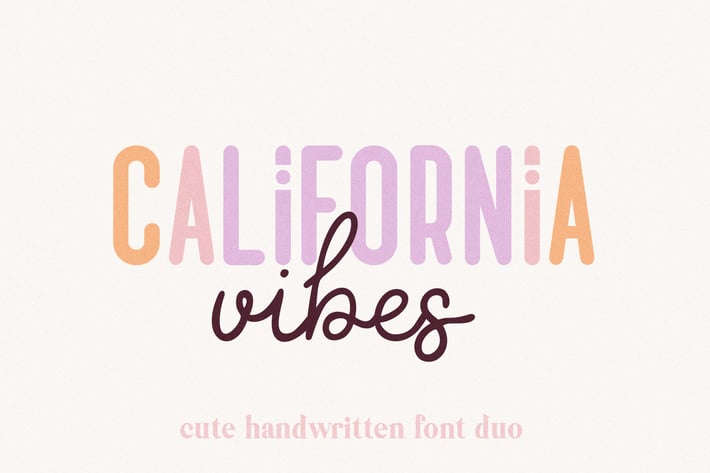
California Vibes Font Duo
California Vibes a cute handwritten font duo for crafters
- California Vibes Script Font - Upper and lowercase letters
- California Vibes Sans Serif Font - Capital letters
- Numbers